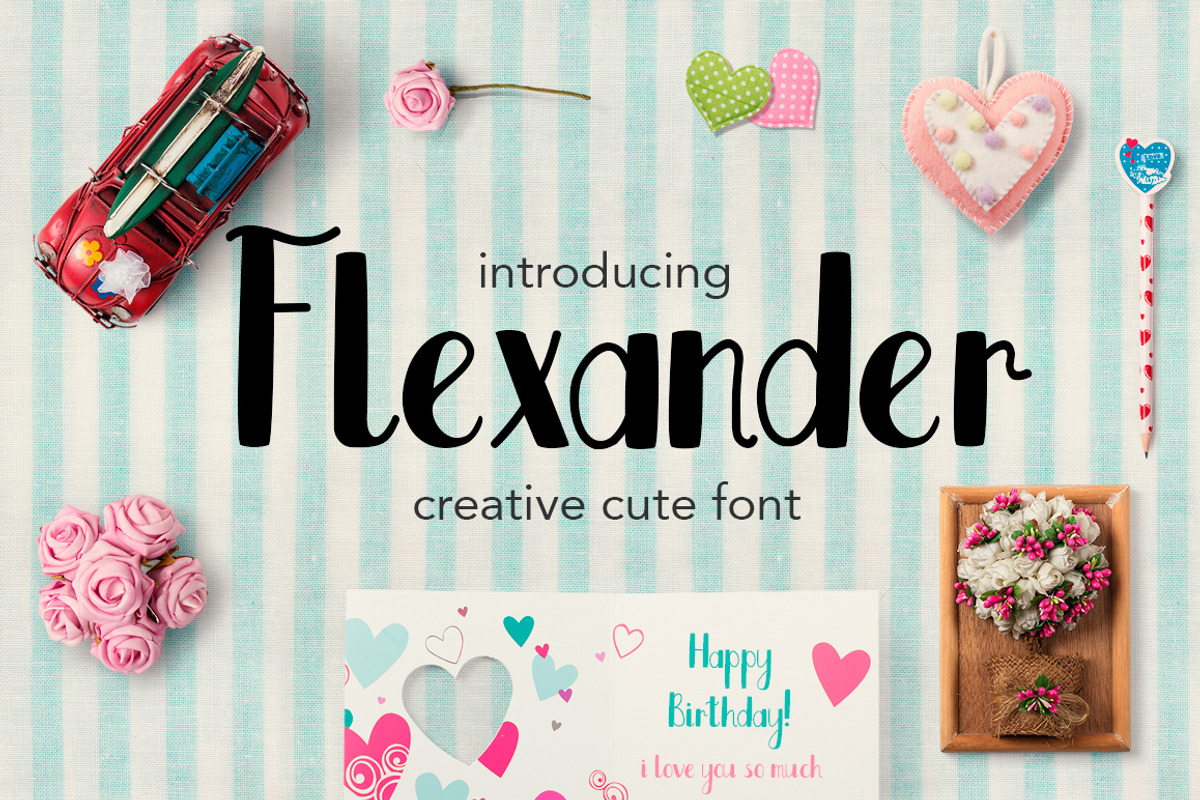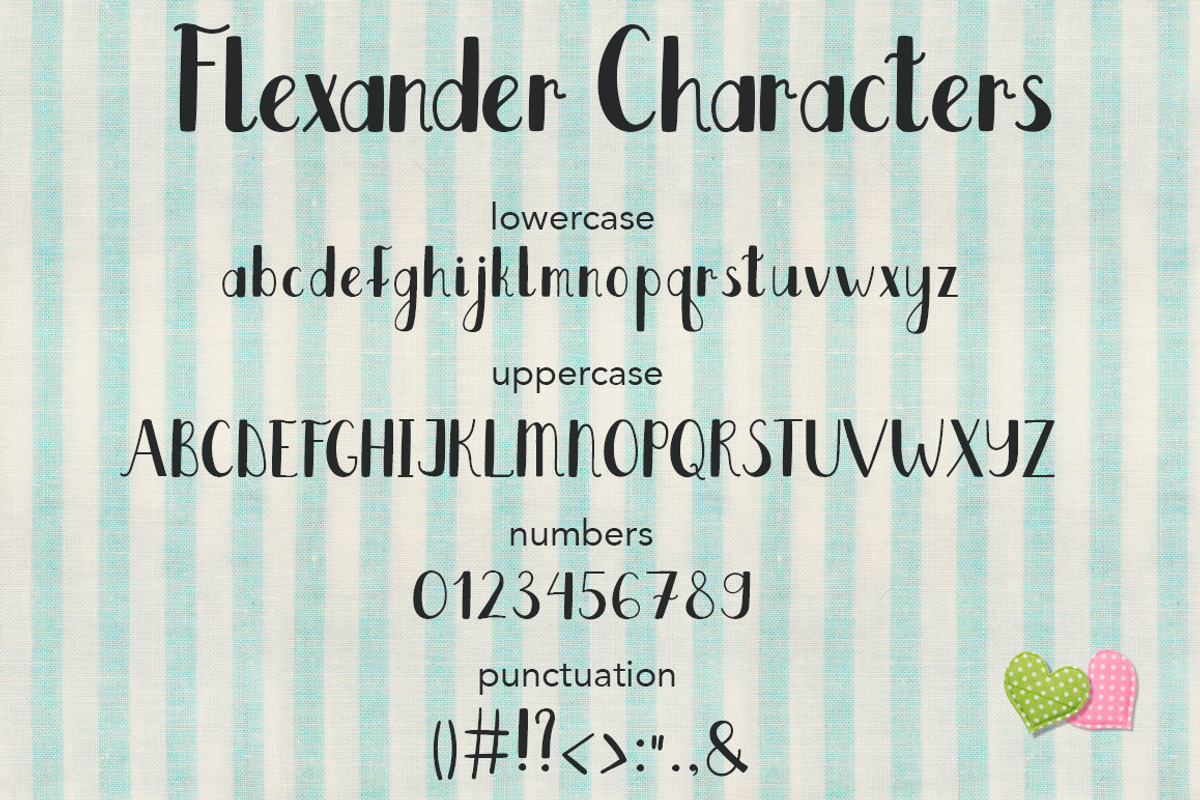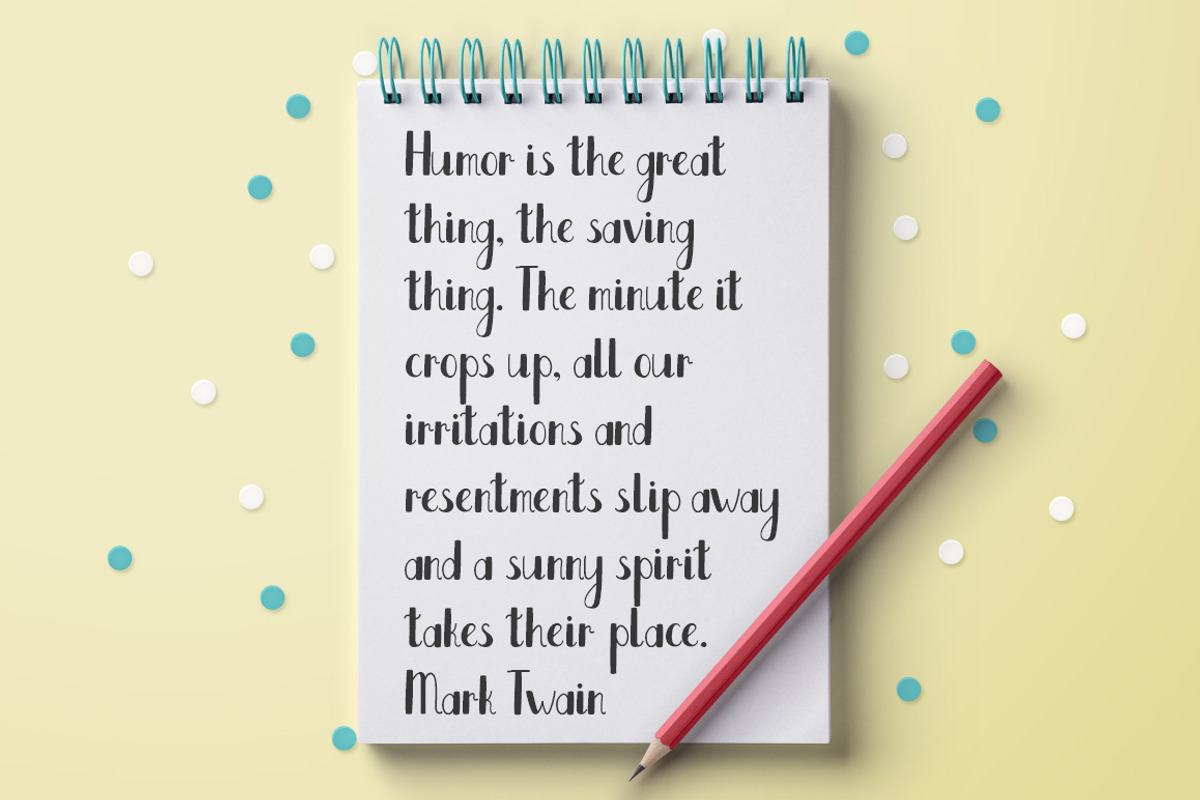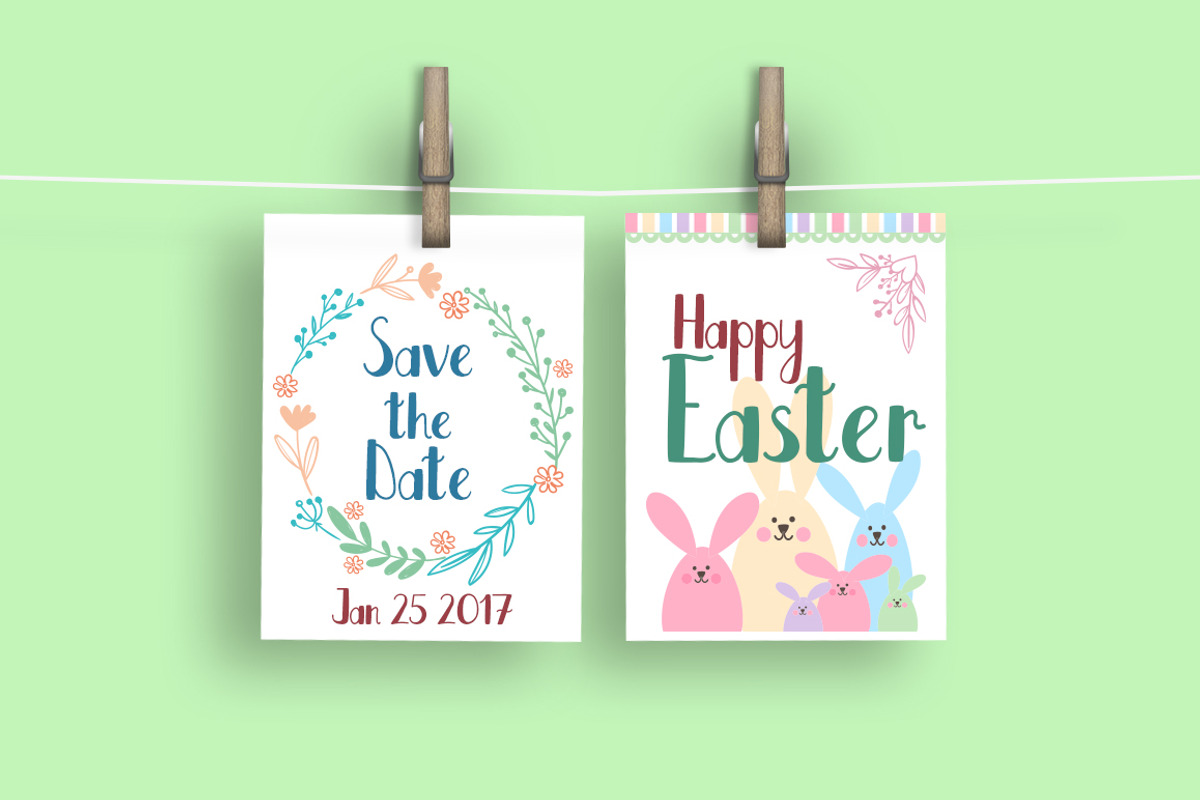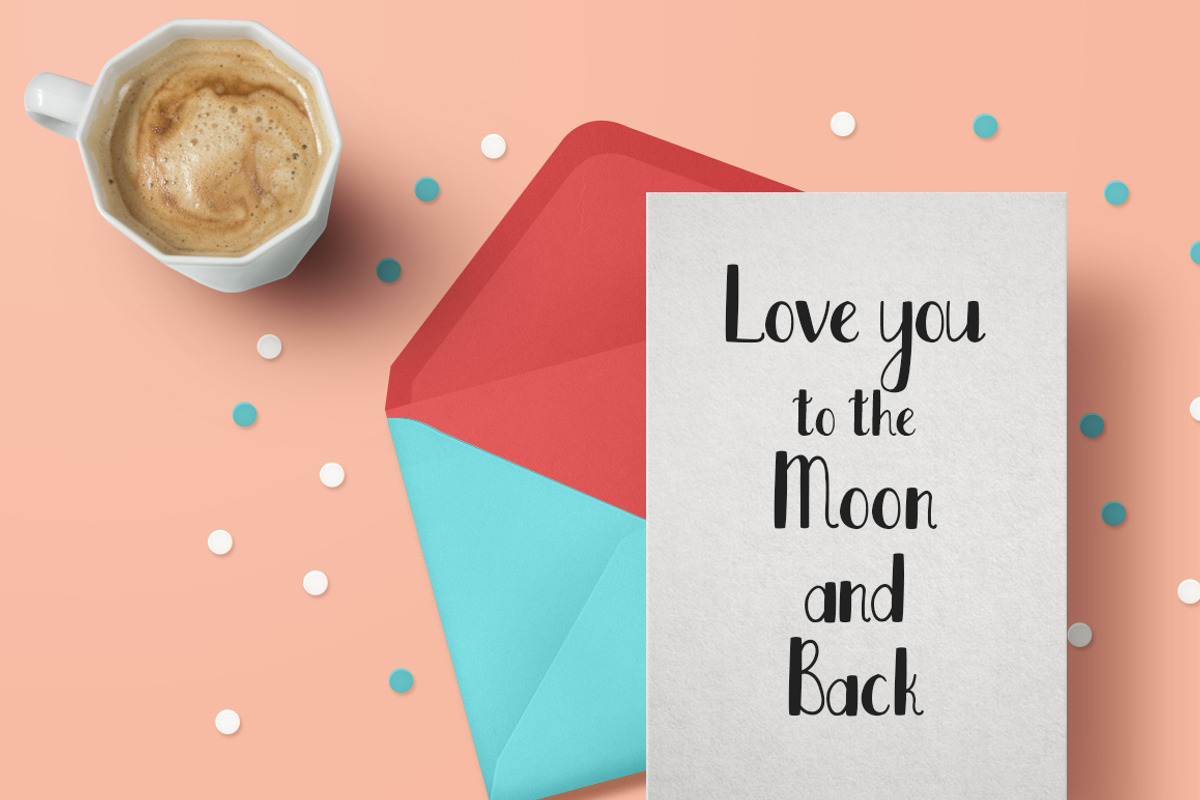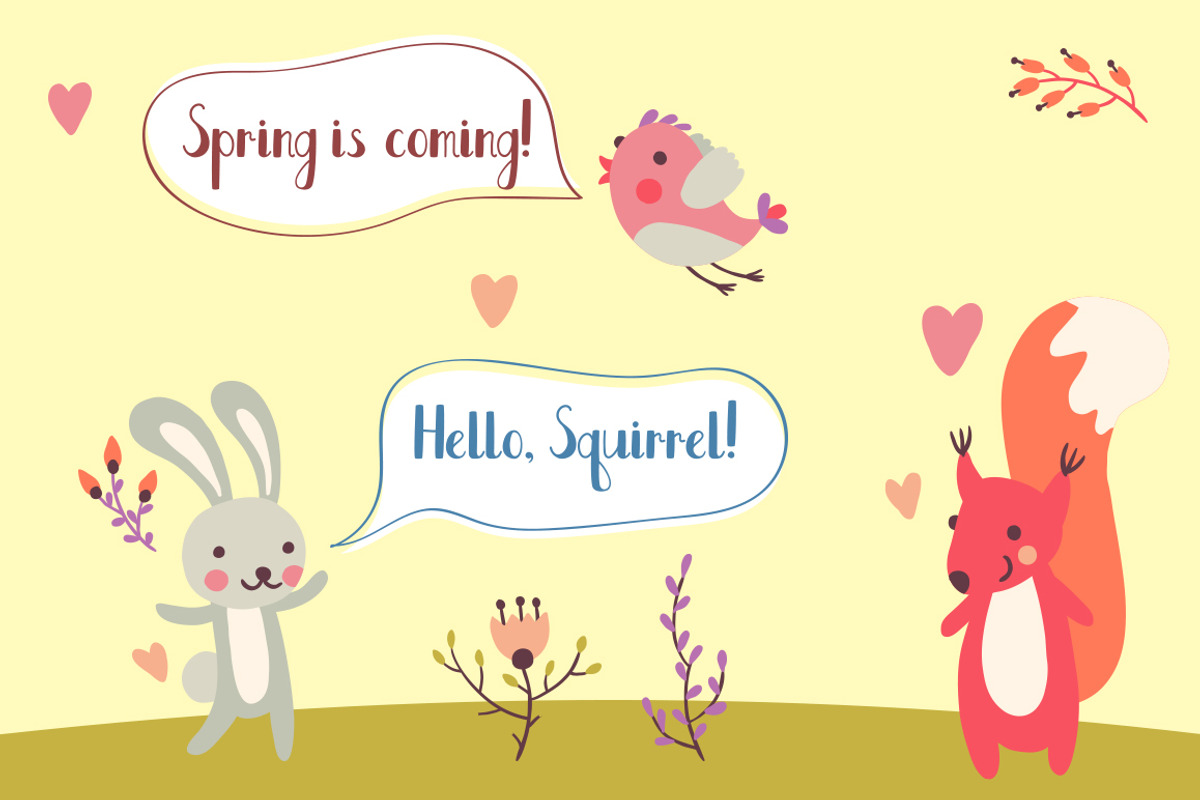
Flexander Font
Flexander Font by Elvetica Letters is a font selected for branding, posters, packaging, typography.
- Uppercase A-Z, lowercase a-z, numbers 0-9, punctuations
- Flexander font will look great for children books, funny greeting cards and cute logotypes Included: OTF and TTF files including all the let
Why Flexander Font is worth a look
Flexander Font by Elvetica Letters fits naturally into Branding, posters, packaging, typography.